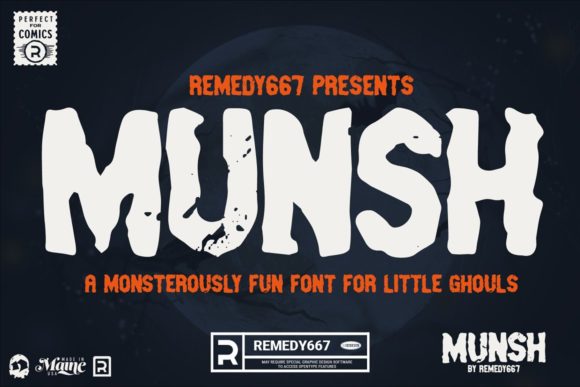
Journey into the realm of captivating storytelling with Munsh, a display font that commands attention and ignites imagination. Its bold and chunky letters exude a raw, organic charm, inviting readers to immerse themselves in a world of unforgettable narratives.
Crafted by remedy667, Munsh is a font that breathes life into your creative endeavors. Whether you're a writer seeking to transport readers to extraordinary realms or a designer yearning to create visually striking masterpieces, Munsh is your trusted companion.
With its distinct and memorable letterforms, Munsh transforms ordinary words into captivating visual feasts. Its sturdy strokes create a sense of stability and strength, while its playful curves add a touch of whimsy and intrigue.
Experience the transformative power of Munsh in your book content, leaving an indelible mark on readers' minds. Its bold presence ensures that your words leap off the page, captivating audiences with every turn.
Munsh is not merely a font; it's an artistic gateway that unveils a world of boundless possibilities. Its versatility extends beyond book content, seamlessly adapting to a symphony of creative projects.
Envision Munsh gracing your social media posts, captivating followers with its bold and vibrant personality. Picture it adorning your posters and flyers, commanding attention in a sea of mundane designs.
With Munsh as your creative ally, the ordinary becomes extraordinary. Its magnetic pull draws audiences in, leaving them spellbound by your creations.
So, embrace the allure of Munsh and embark on a creative odyssey where imagination reigns supreme. Let Munsh ignite your passion, fuel your storytelling prowess, and elevate your designs to breathtaking heights.